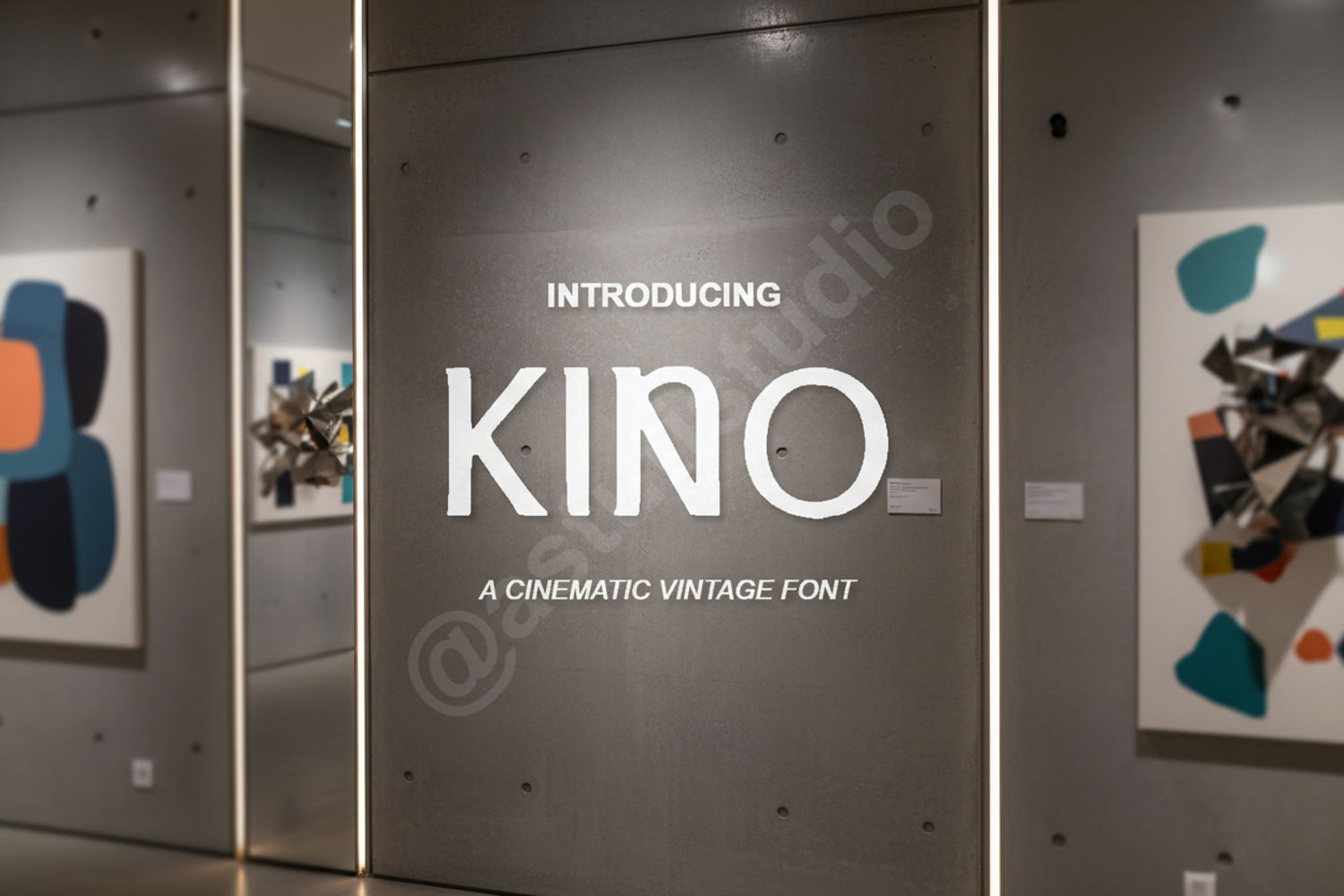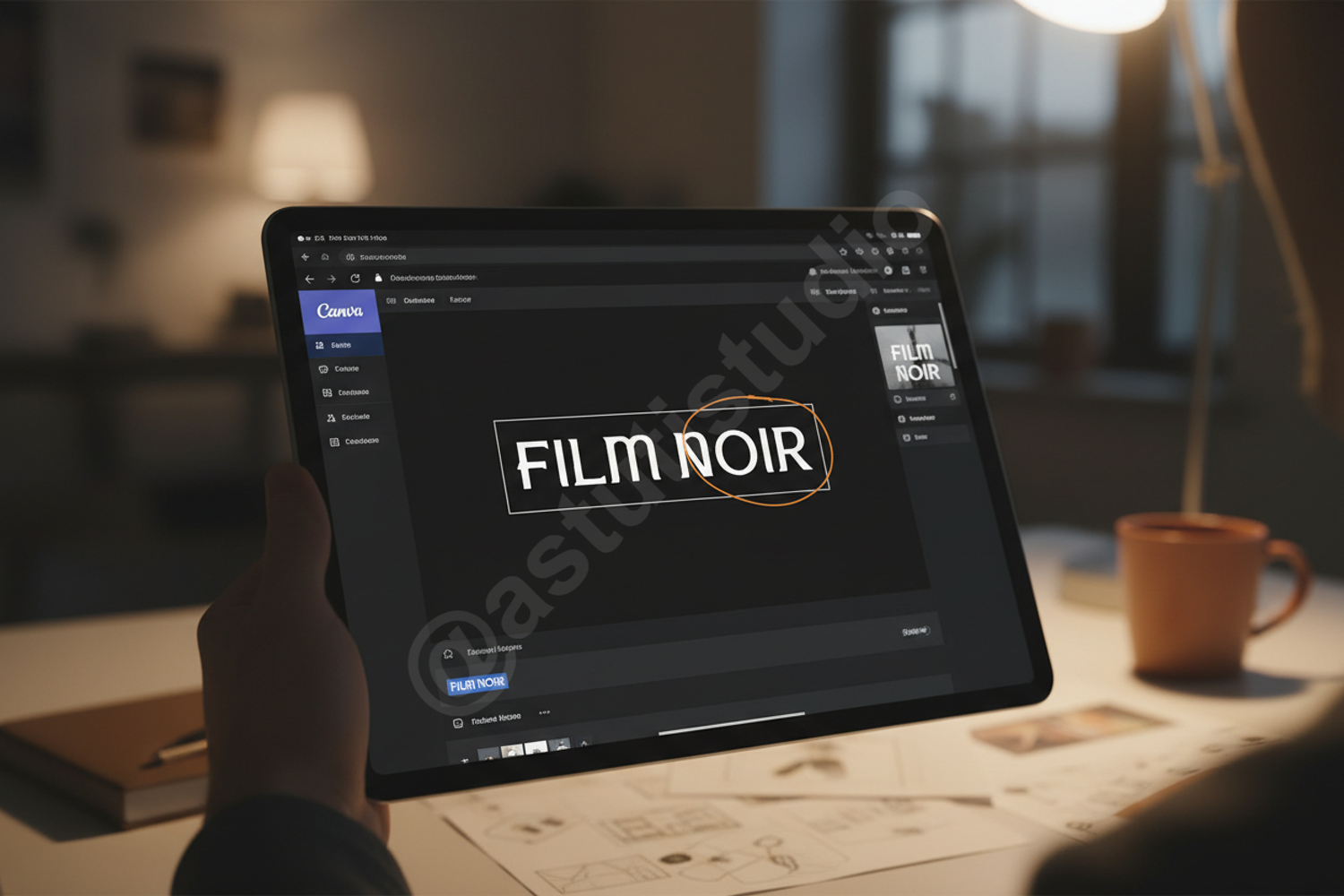
Kino | Modern Cinematic Display Font
Kino
Experience the power of Kino, a premium display font meticulously crafted to bring a touch of cinematic elegance to your design projects. With its clean lines and bold presence, Kino is designed for creators who demand professional quality and a timeless aesthetic. Whether you are working on a high-end brand or a minimalist layout, this font provides the versatility needed to stand out.
- High-end Branding and Visual Identity
- Cinematic Movie Posters and Title Sequences
- Luxury Product Packaging and Labels
- Modern Editorial Layouts and Magazine Headlines
- Impactful Social Media Graphics and Advertising
- Minimalist Logo Design and Professional Stationery